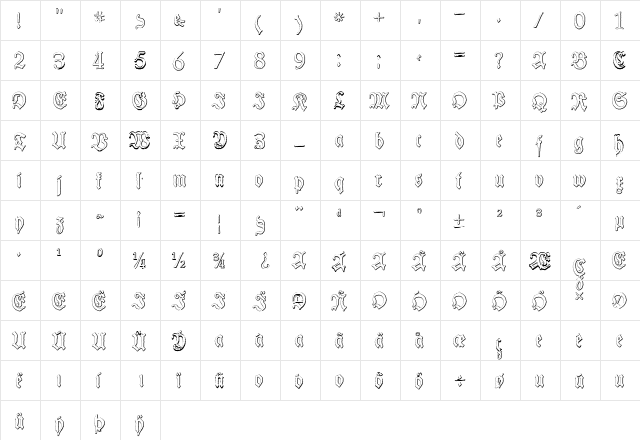
Schneider Buch Deutsch Beveled Free Regular
| Foundry | Paulo W, at Intellecta Design |
Design Context for Schneider Buch Deutsch Beveled Free Typeface
Schneider Buch Deutsch Beveled Free is a composed and adaptable typeface that performs quietly and consistently across a wide range of design contexts.